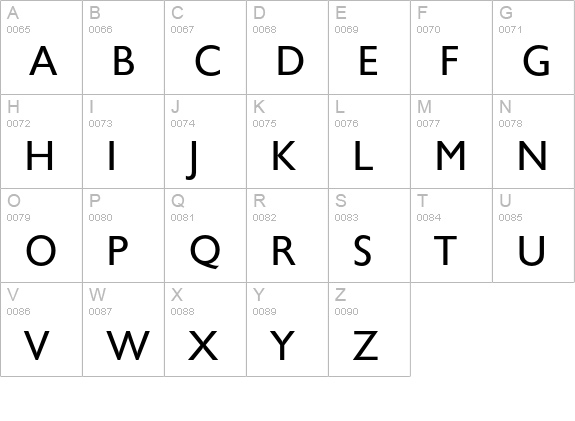
Chantilly-Regular Font Details
Chantilly-Regular is the standard, neutral variant in the Chantilly typeface family \xE2\x80\x94 well suited to general body text, paragraphs, and standard typographic work.
Chantilly-Regular font is a stylish and elegant typeface that exudes sophistication and charm. Its flowing lines and delicate curves make it perfect for a wide range of design projects, from wedding invitations to branding materials. The smooth, clean strokes of Chantilly-Regular give it a timeless appeal that is sure to elevate any design it is used in. The best part? Chantilly-Regular font is completely free to download at FontsMarket.com. This means that you can add this beautiful typeface to your collection without having to spend a dime. Whether you are a seasoned designer looking for a new font to add to your toolkit or a beginner searching for the perfect typeface for your project, Chantilly-Regular is a fantastic choice that won't cost you anything. Download it today and see the difference it can make in your designs!